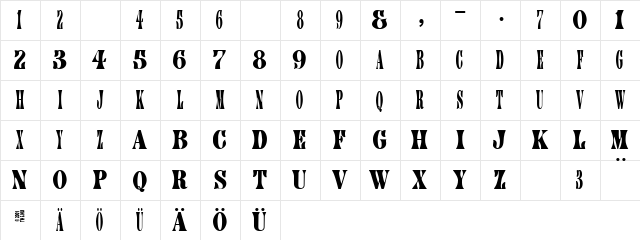
Complete AfterMidnightSale Regular glyph index. Displaying only characters natively supported by AfterMidnightSale Regular font.
AfterMidnightSale is a composed and adaptable typeface that performs quietly and consistently across a wide range of design contexts.